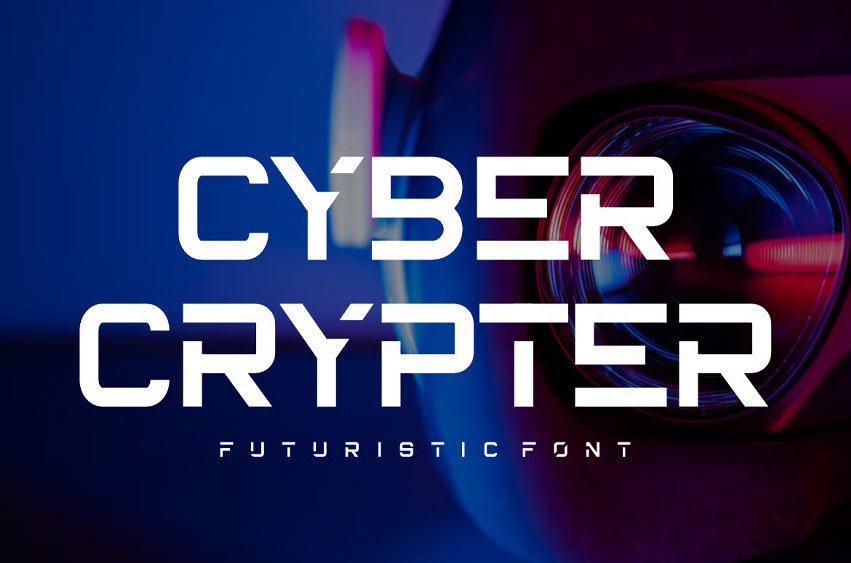
Cyber Crypter Font is a bold, all-caps display font meticulously crafted for the digital age. Featuring sharp angles, striking cutouts, and a geometric structure, it captures the essence of sci-fi, cybercrime, technology, and futuristic innovation.
This font is your essential toolkit for projects that need a high-tech edge, from game titles and movie posters to brand identity and digital interfaces.